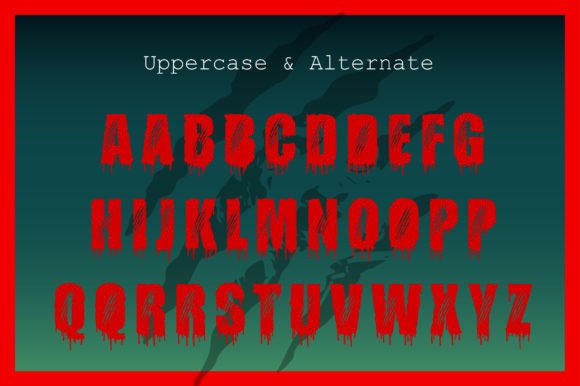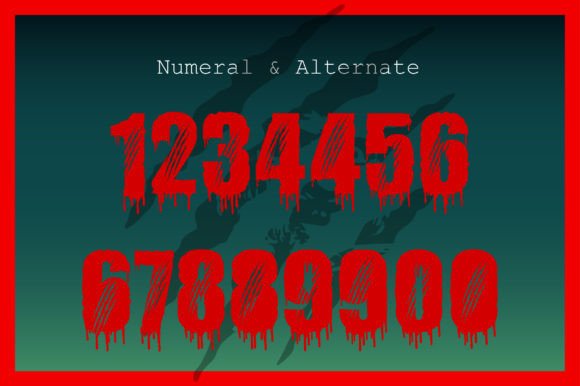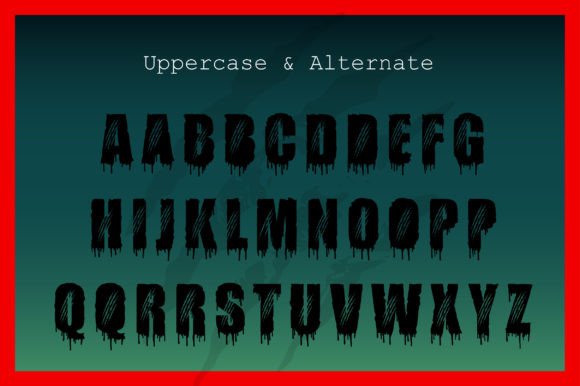
Introduction to Freddy Dripping Font
As a designer, there’s nothing quite like the thrill of bringing a creative project to life. It’s that moment of inspiration, when the perfect font can elevate your entire design and transport your audience to a new world. For me, that moment came when I stumbled upon the eerie, blood-like drips of the Freddy Dripping Font. Its unique design is sure to send shivers down your spine, making it the perfect addition to any horror-themed project.
Whether you’re a seasoned designer or a beginner looking for a design resource, the Freddy Dripping Font is a valuable asset to have in your arsenal. With its high-quality design and transparent background, you can easily incorporate it into your next creative project – from movie titles and logos to book covers and horror stories. And the best part? It’s available for free download, making it an accessible and versatile tool for designers of all levels.
Key Features of Freddy Dripping Font
- Unique dripping effect design, perfect for creative projects and artistic expressions
- High-quality font with a transparent background, allowing for easy layering and customization
- Designed with a large x-height, making it suitable for body text and titles in various creative projects
- Supports Latin, Cyrillic, and Greek alphabets, catering to a wide range of languages and design requirements
Honest Review: Freddy Dripping Font
I recently stumbled upon the Freddy Dripping Font while searching for a free download to use in a creative project. I was immediately drawn to its unique and eye-catching design.
What works well is the font’s versatility. It’s perfect for use in bold headings or as a decorative element in your design. The high quality of the font is also evident, with clear and crisp lines that make it easy to read.
Here are some of its key features:
- Transparent background for easy use
- High quality design
- Perfect for creative projects
However, there are some limitations to consider ⚠️. The font is not suitable for body text, as it can be quite difficult to read in smaller sizes. Additionally, it may not be compatible with all design software.
Overall, I’m impressed with the Freddy Dripping Font and would definitely recommend it as a design resource for creative projects. It’s a great addition to any designer’s toolkit, and with its unique design and high quality, it’s sure to make a statement in your next project ✨.
Tips for Getting the Most Out of Freddy Dripping Font
To maximize the impact of the Freddy Dripping Font, experiment with different text sizes, colors, and arrangements. Combine it with other design elements to create a visually appealing composition.
The Freddy Dripping Font is suitable for various design projects, such as:
- Graphic designs
- Logos and branding
- Posters and flyers
- Web design elements